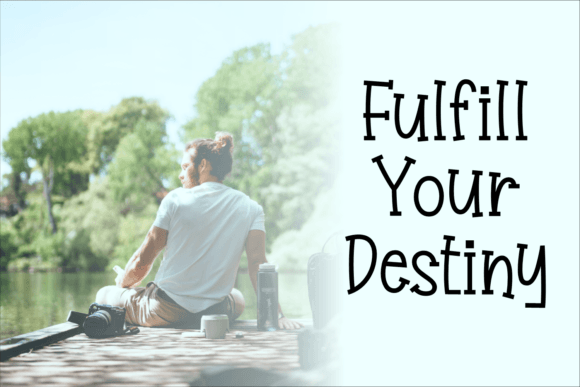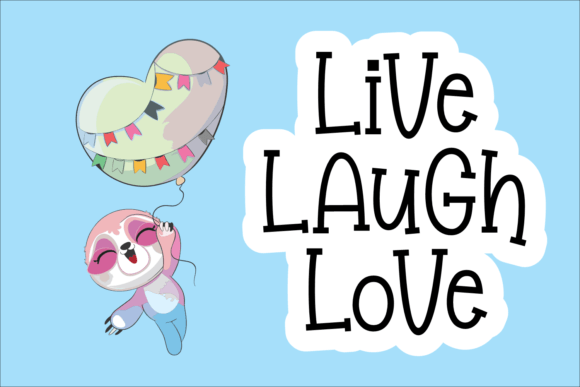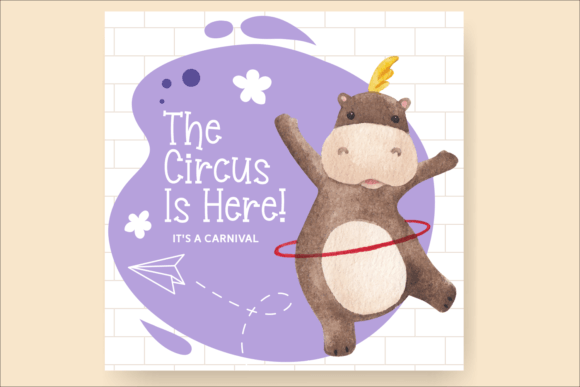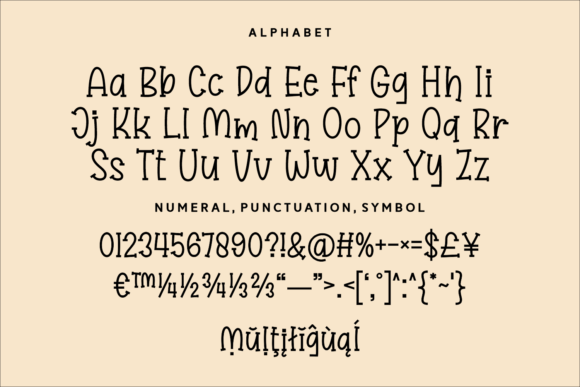
Hello Bitty Font: The Cute and Friendly Serif Font You Need
Hello Bitty is a charming serif font that has captured the hearts of designers and crafters alike. This sweet and playful typeface is an excellent addition to any font library, offering a unique and creative way to express your ideas. In this article, we’ll dive into the world of Hello Bitty Font, exploring its features, benefits, and uses.
What is Hello Bitty Font?
Hello Bitty is a cute and friendly serif font designed to bring a touch of whimsy to your typography. Its distinctive features include rounded edges, gentle curves, and a dash of playfulness. This font is perfect for designers and crafters looking to add a personal touch to their projects, whether it’s a logo, heading, or body text.
Key Features of Hello Bitty Font
- Cute and Friendly Design: Hello Bitty’s unique design makes it stand out from other serif fonts. Its rounded edges and gentle curves give it a friendly and approachable feel.
- Playful and Whimsical: This font is perfect for projects that require a touch of playfulness and whimsy. It’s ideal for designs that need to convey a sense of fun and creativity.
- Serif Font: Hello Bitty is a serif font, which means it features small lines or flourishes at the end of each letter. This adds a touch of sophistication and elegance to your typography.
- Easy to Read: Despite its playful design, Hello Bitty is easy to read, making it perfect for body text and headings.
Benefits of Using Hello Bitty Font
Hello Bitty Font offers several benefits to designers and crafters. Here are a few:
- Unique and Creative: Hello Bitty’s distinctive design makes it a great way to add a personal touch to your projects. It’s perfect for designers looking to create unique and creative typography.
- Versatile: This font is versatile and can be used for a wide range of projects, from logos and headings to body text and crafts.
- Easily Customizable: Hello Bitty is easy to customize, allowing you to adjust the font size, color, and style to suit your project’s needs.
Uses of Hello Bitty Font
Hello Bitty Font is perfect for a variety of projects, including:
- Logos and Branding: Use Hello Bitty to create a unique and memorable logo for your brand.
- Headings and Titles: Add a touch of playfulness to your headings and titles with Hello Bitty.
- Body Text: Use Hello Bitty as a body text font for a friendly and approachable feel.
- Crafts and DIY Projects: Hello Bitty is perfect for crafters and DIY enthusiasts looking to add a personal touch to their projects.
Tips for Using Hello Bitty Font
Here are a few tips for using Hello Bitty Font:
- Use it Sparingly: Hello Bitty is a bold font, so use it sparingly to avoid overwhelming your design.
- Experiment with Colors: Try out different colors to see what works best with Hello Bitty.
- Pair it with Other Fonts: Hello Bitty pairs well with other fonts, so experiment with different combinations to find the perfect match.
Hello Bitty Font is a charming serif font that’s perfect for designers and crafters looking to add a touch of whimsy to their typography. Its unique design, playful feel, and versatility make it an excellent addition to any font library. Whether you’re creating a logo, heading, or body text, Hello Bitty is sure to elevate your design and bring a smile to your audience’s face.
In conclusion, Hello Bitty Font is a must-have for designers and crafters looking to add a touch of playfulness and creativity to their typography. Its unique design, versatility, and ease of use make it an excellent asset to any font library.